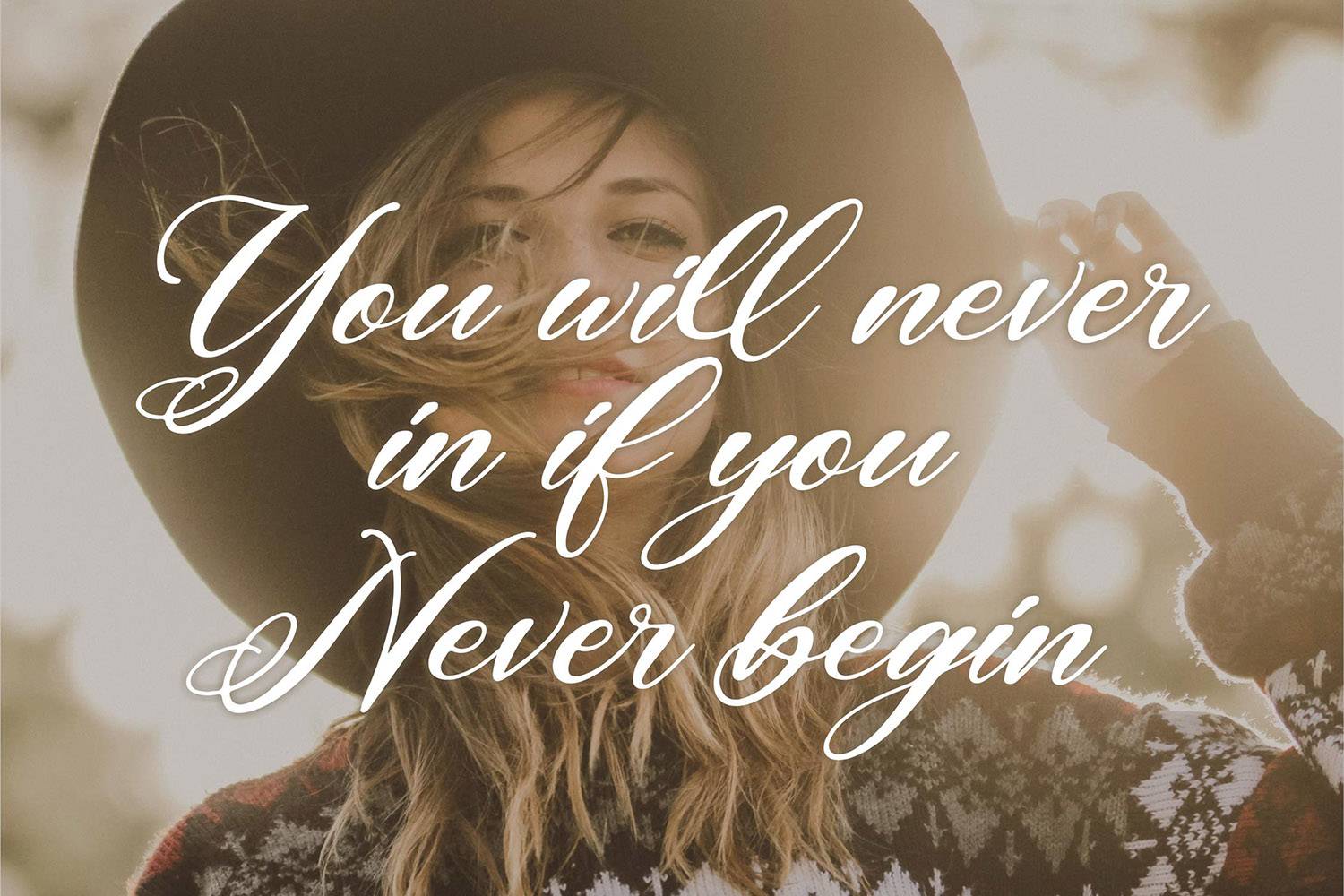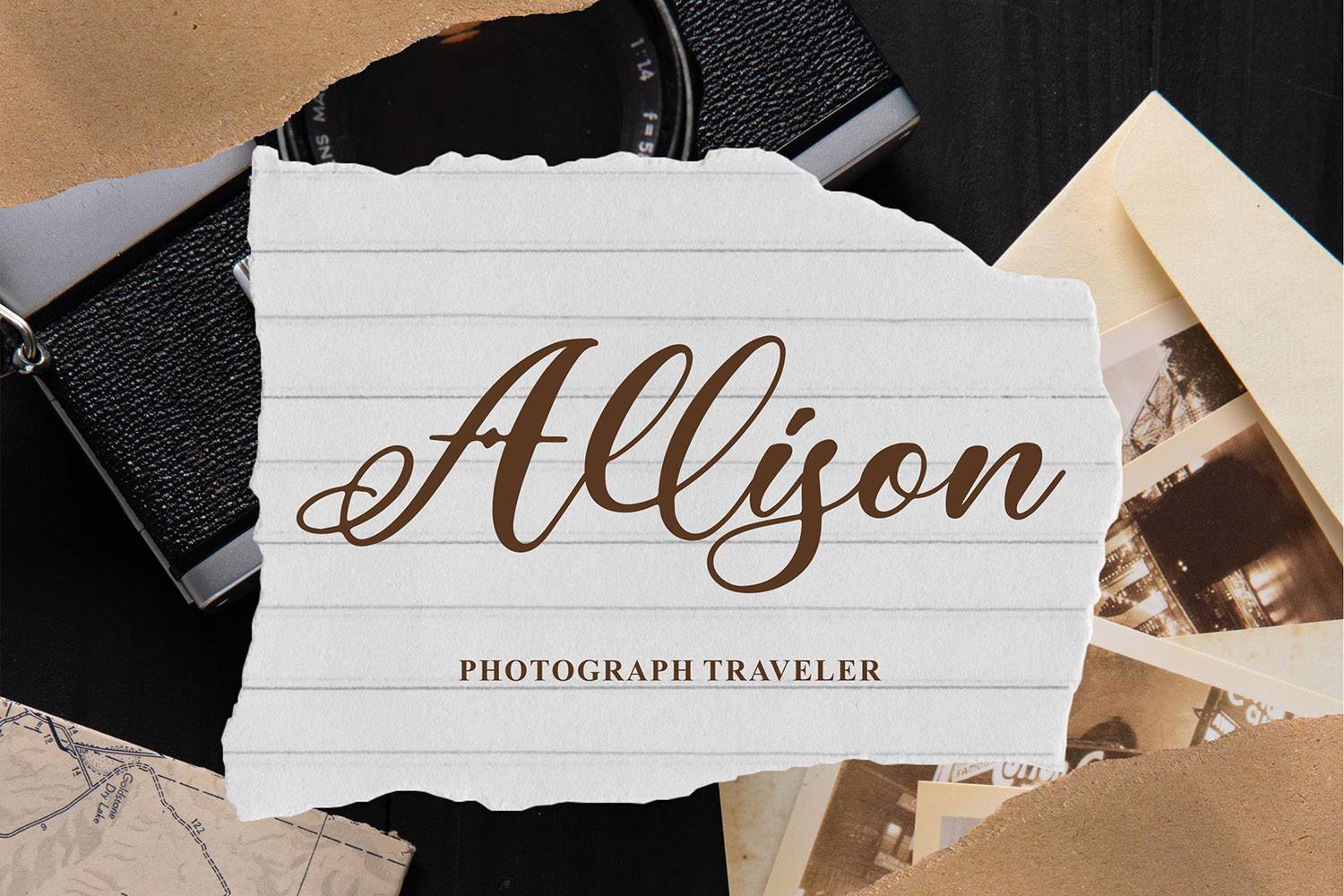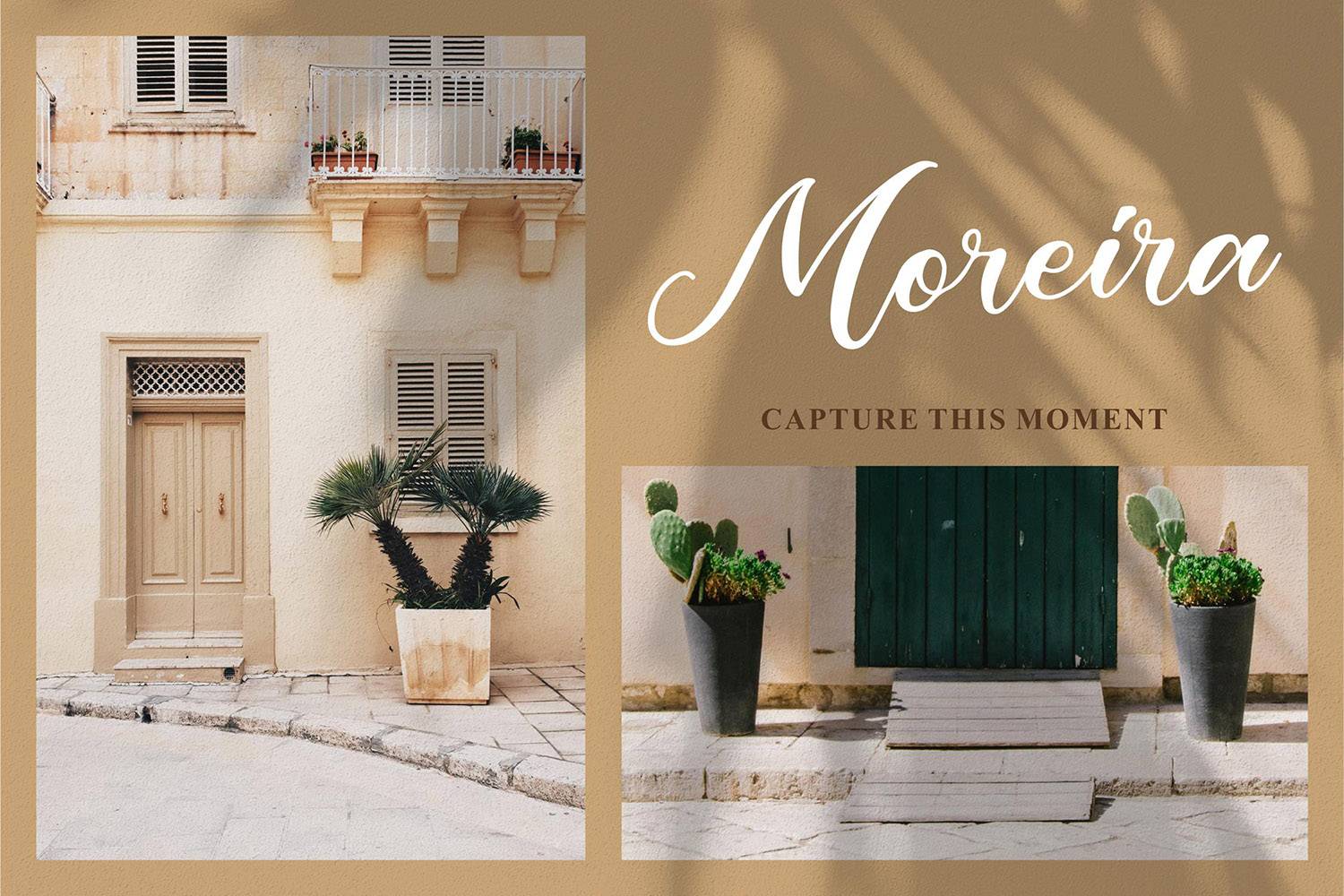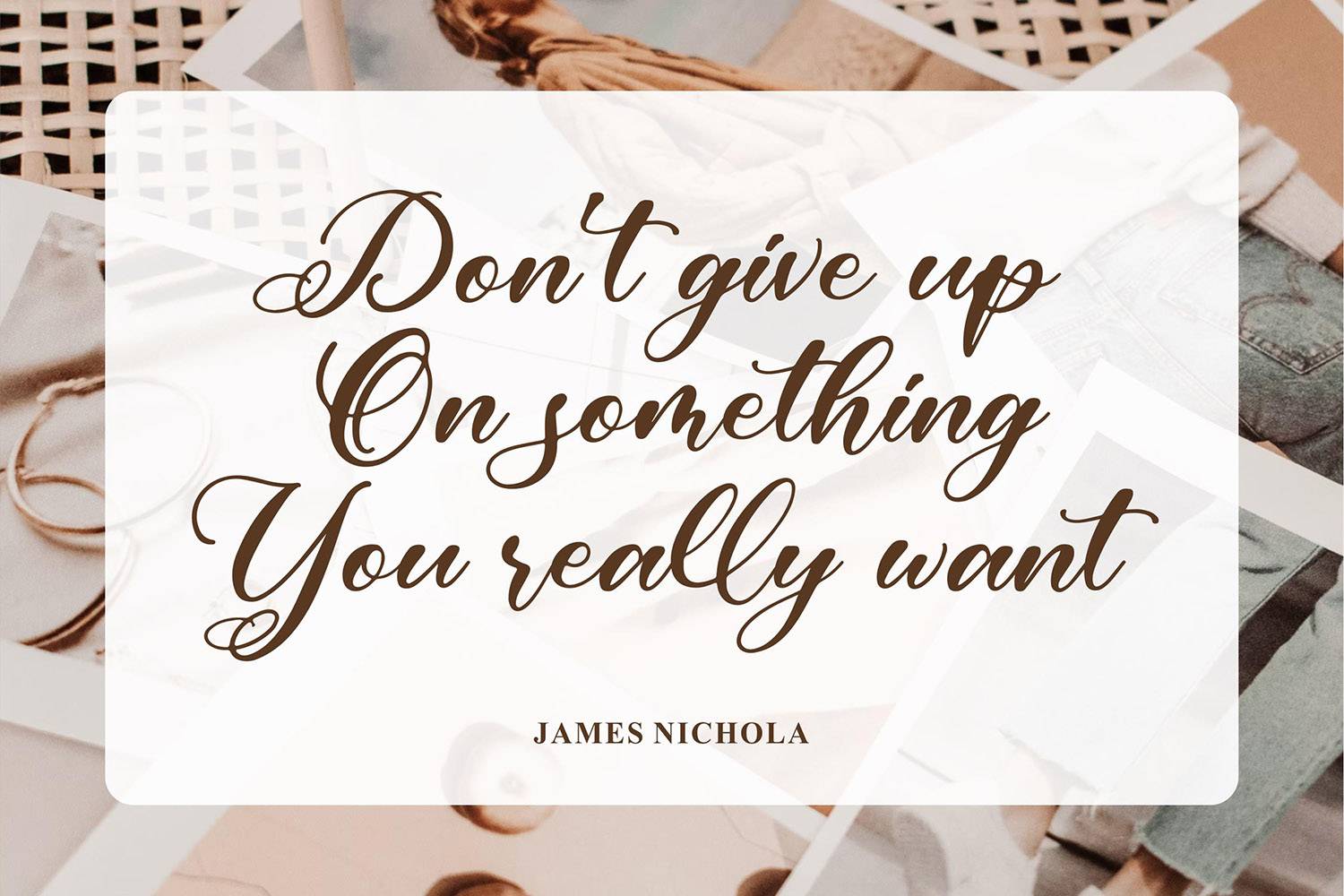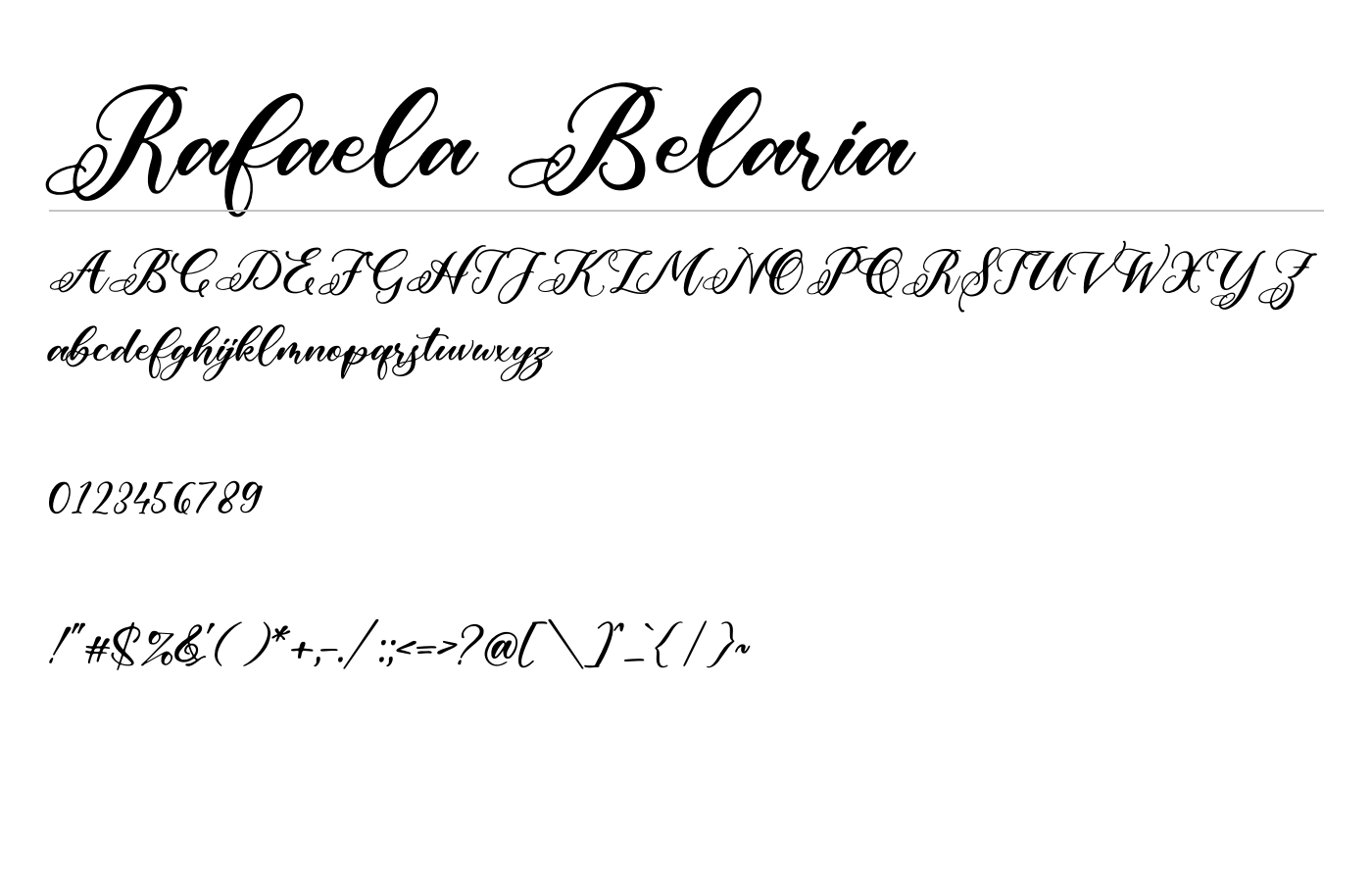
Rafaela Belaria is an elegant cursive script font that features flowing, decorative letterforms with high contrast between thick and thin strokes, giving it a graceful and sophisticated feel. Its delicate swashes and smooth curves make it perfect for luxury branding, wedding invitations, and stylish logos where a refined, classic touch is desired. This font works best in headlines or short phrases, adding a romantic and artistic flair to any design.
Rafaela Belaria Font